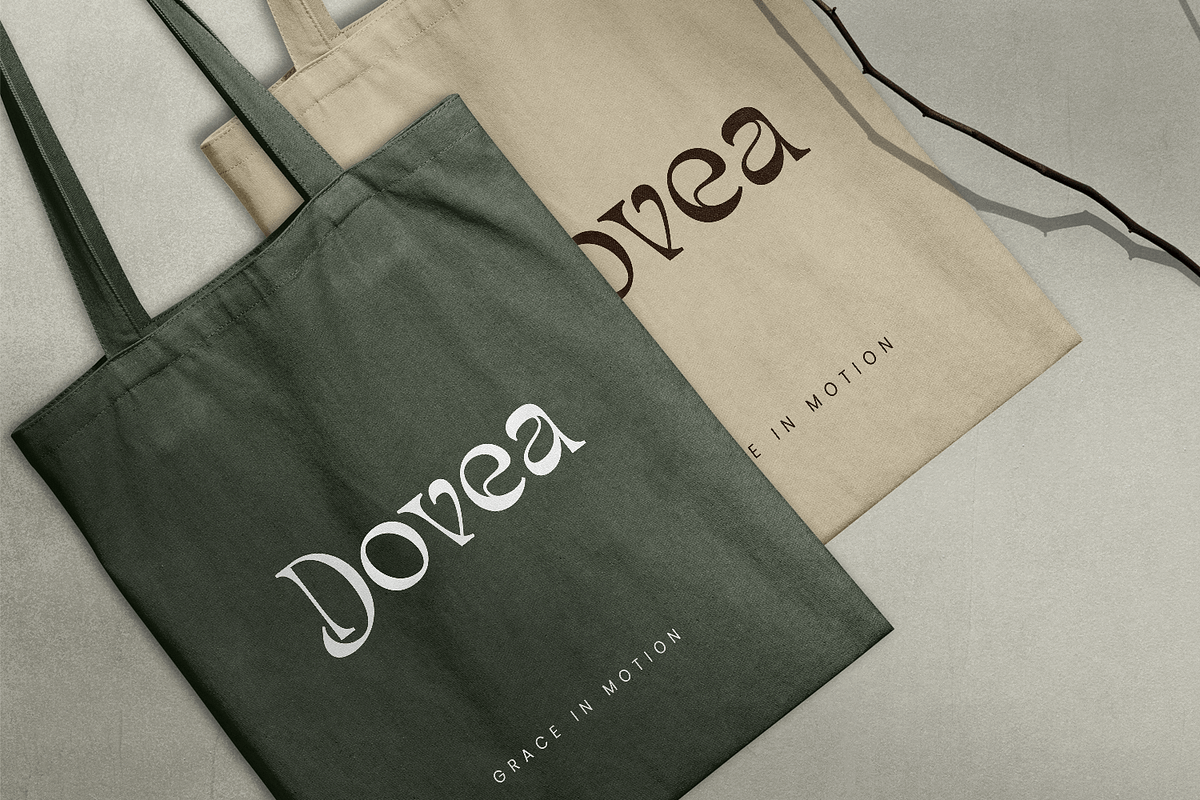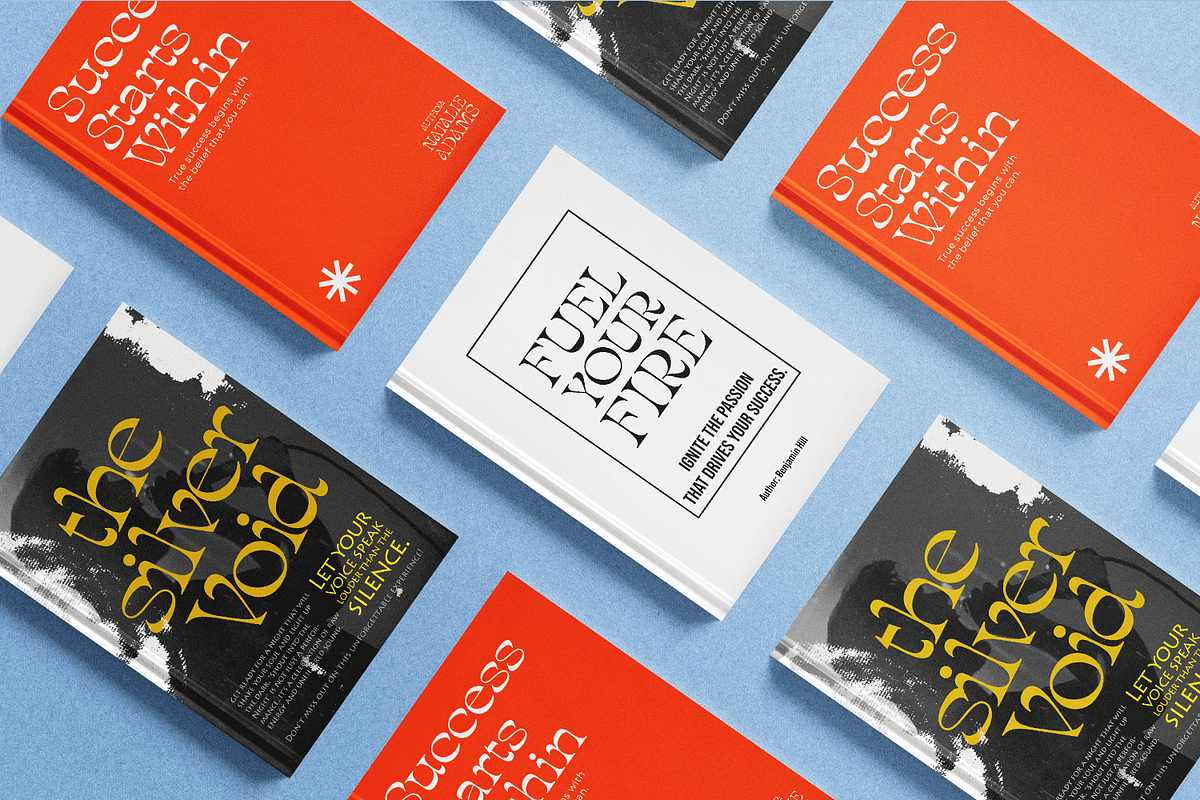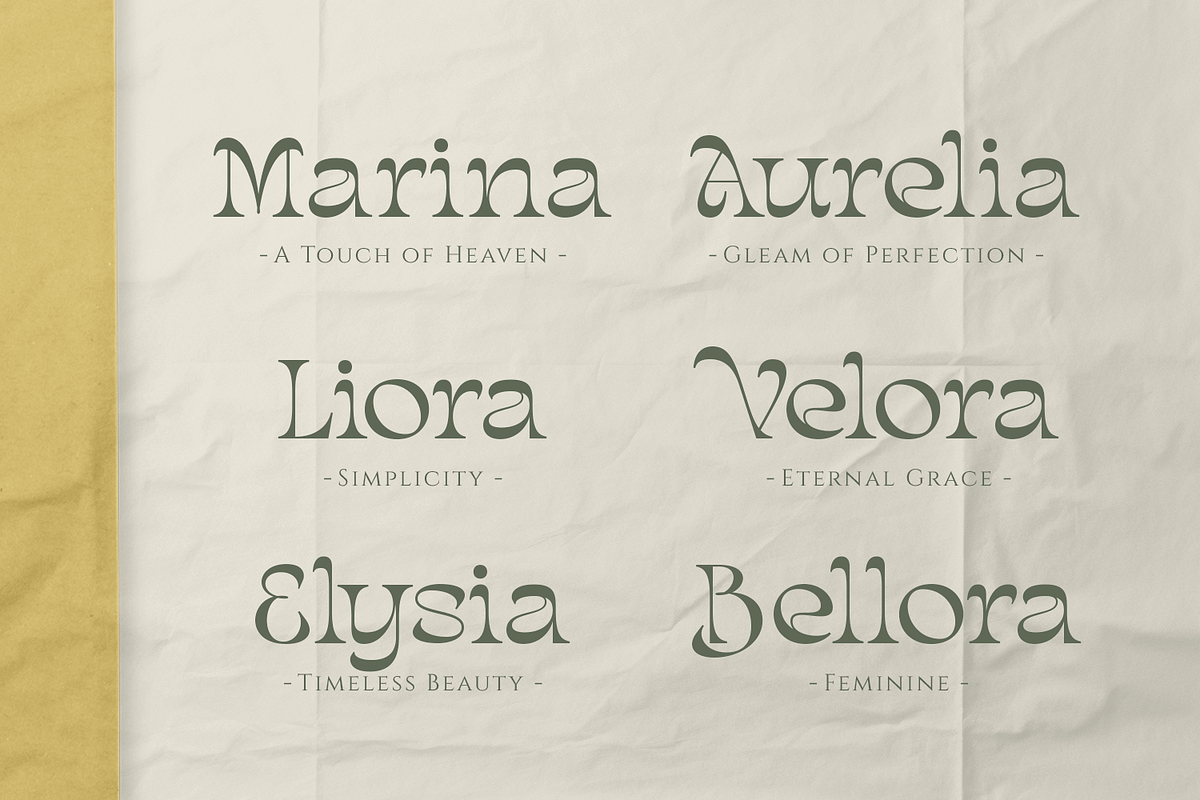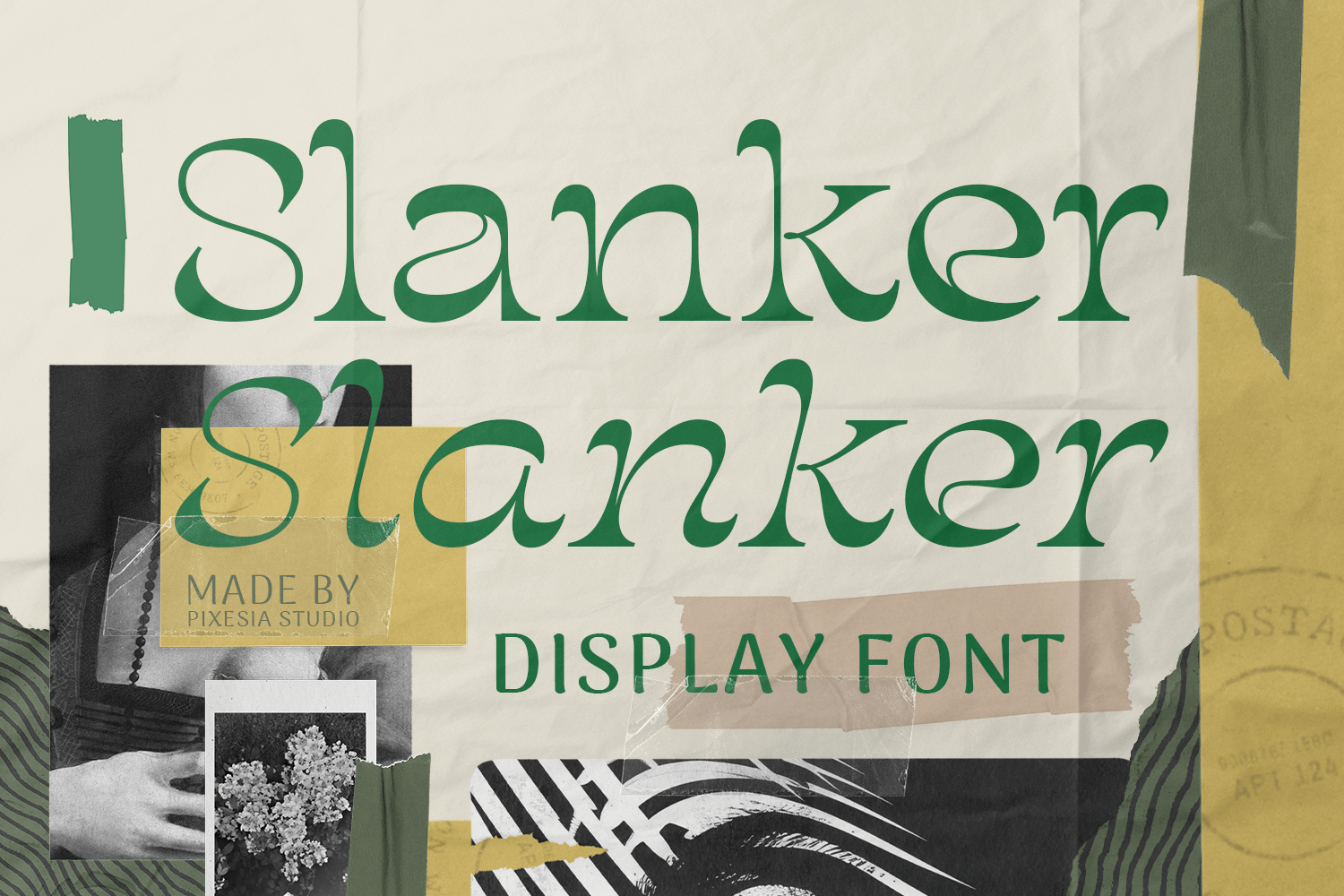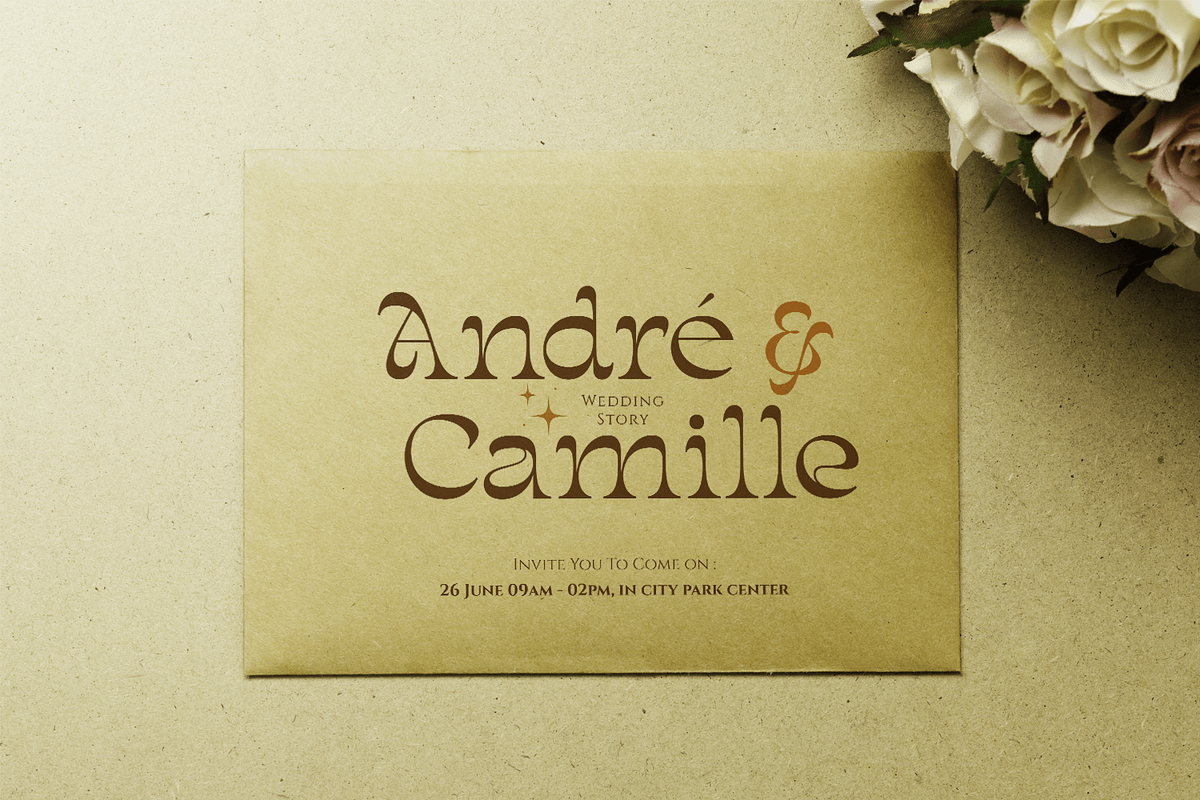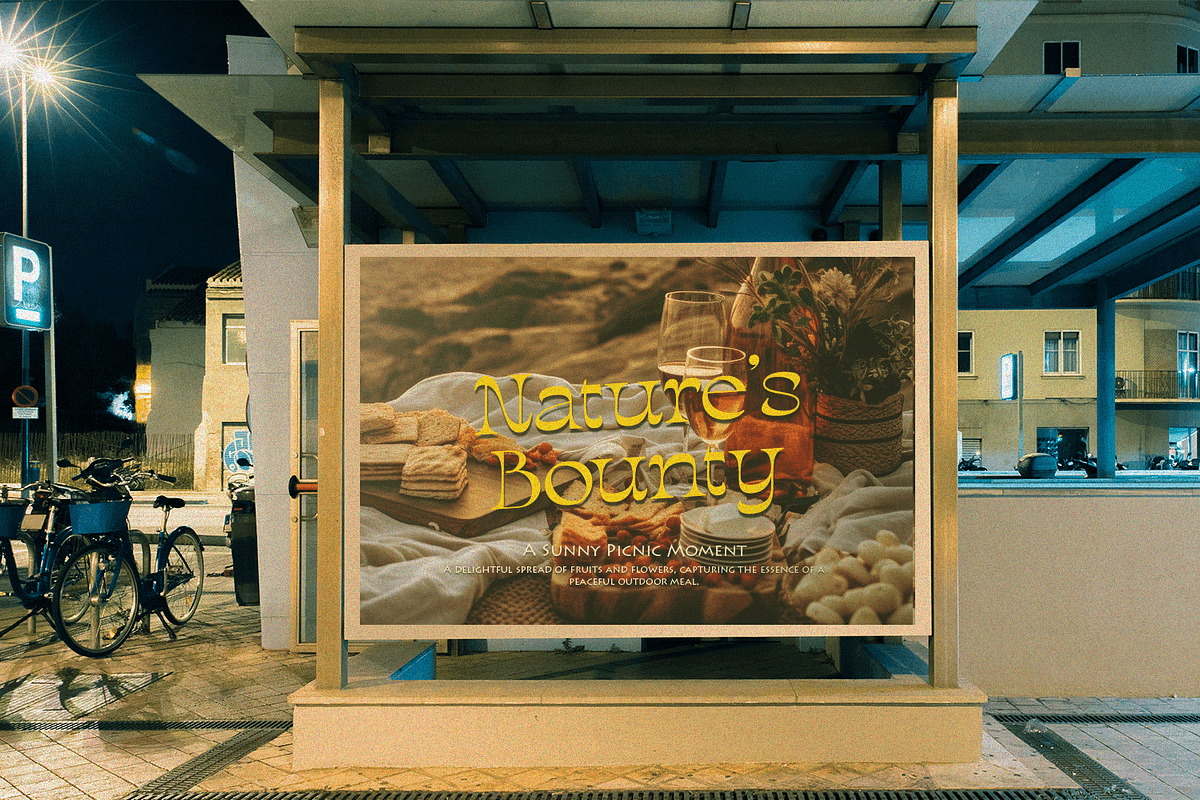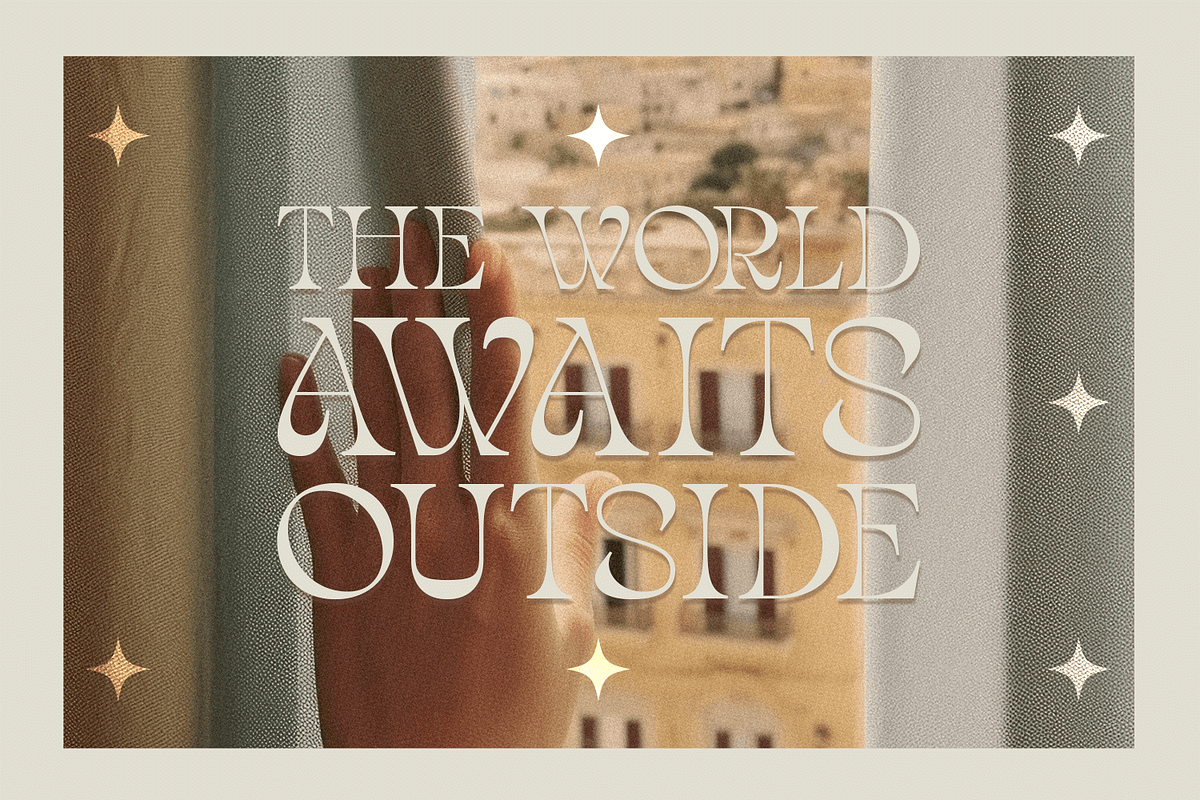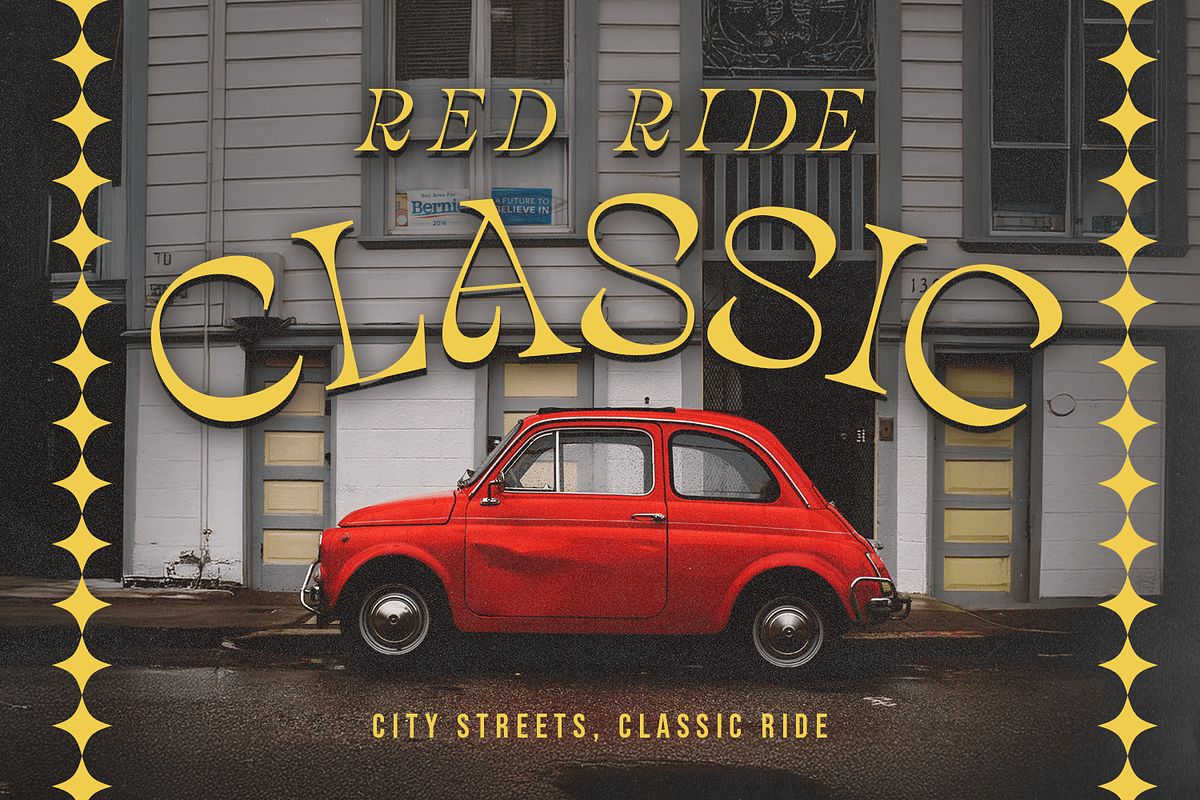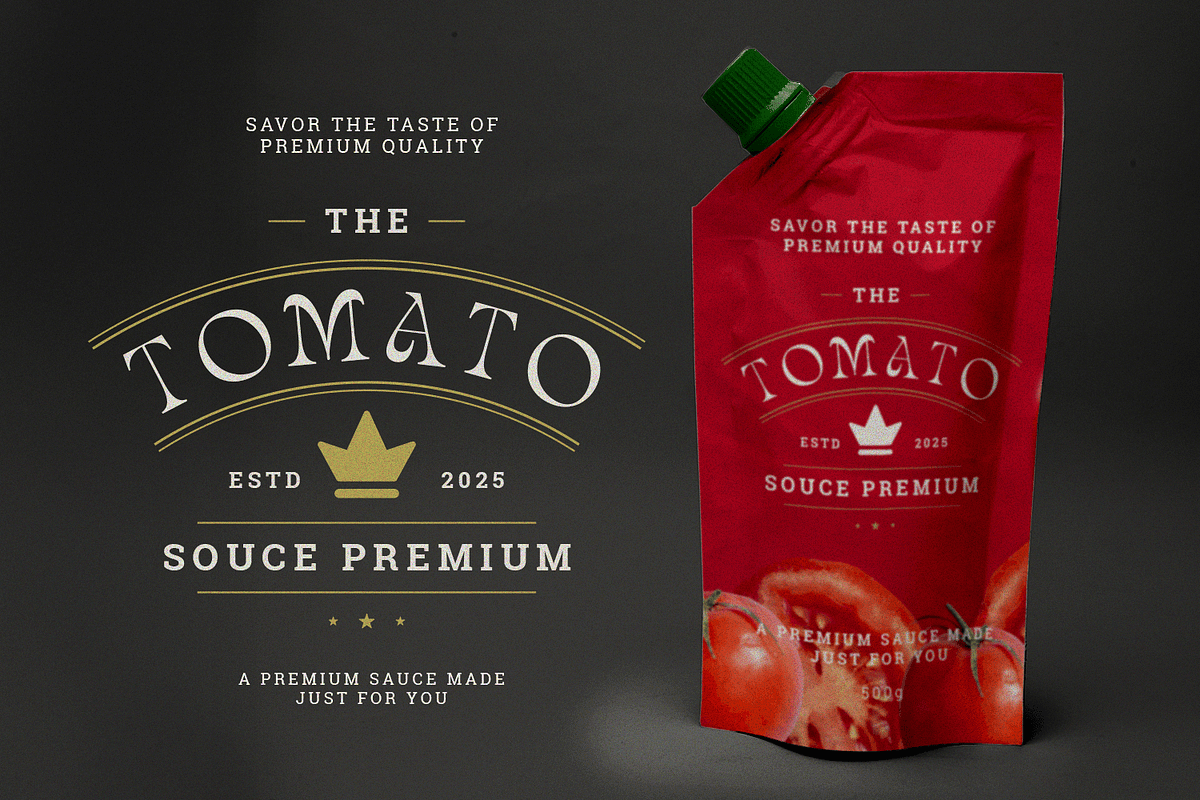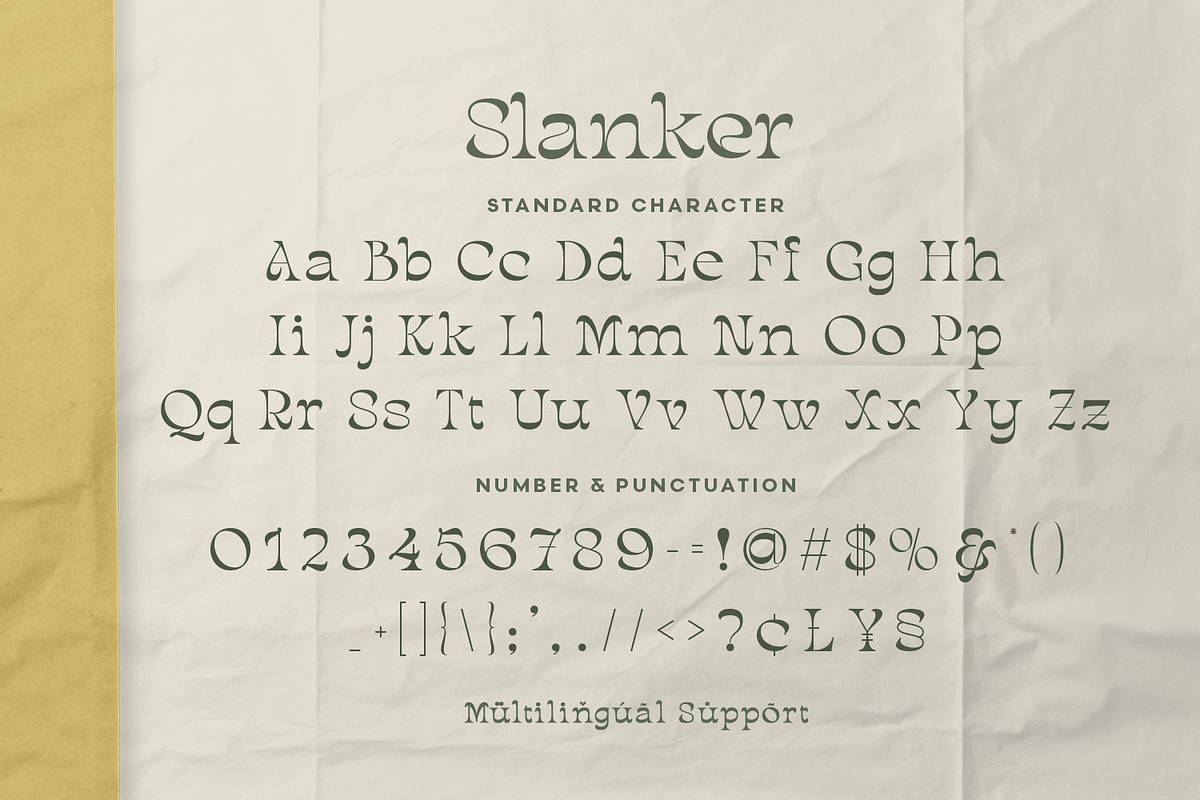
Slanker – Elegant Display Serif Font
Introducing Slanker – Elegant Display Serif Font
Slanker is a stylish and unique display serif font featuring artistic curves and refined shapes. Its sophisticated form combines modern design with a subtle retro flair, giving your typography a distinctive and confident look.
Slanker is ideal for editorial headlines, branding logos, packaging designs, posters, book covers, social media graphics, fashion projects, and any creative work that seeks elegance with character and visual impact.
- Multilingual Support including Afrikaans, Albanian, Basque, Catalan, Danish, Dutch, English, Estonian, Faroese, Filipino, Finnish, French, Galician, German, Icelandic, Indonesian, Irish, Italian, Malay, Norwegian Bokmål, Portuguese, Spanish, Swahili, Swedish, Zulu